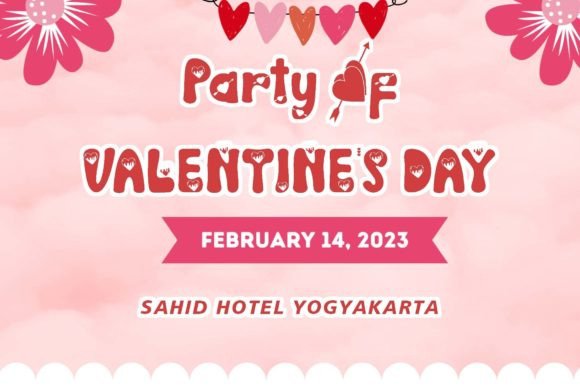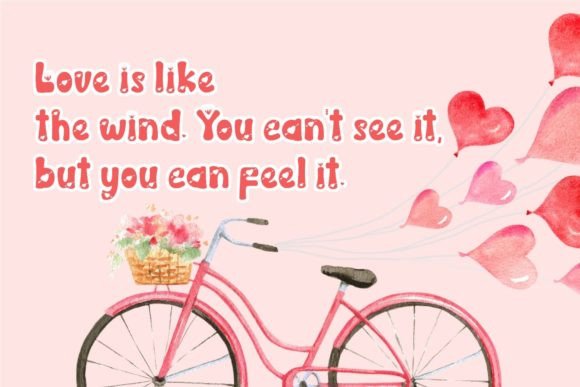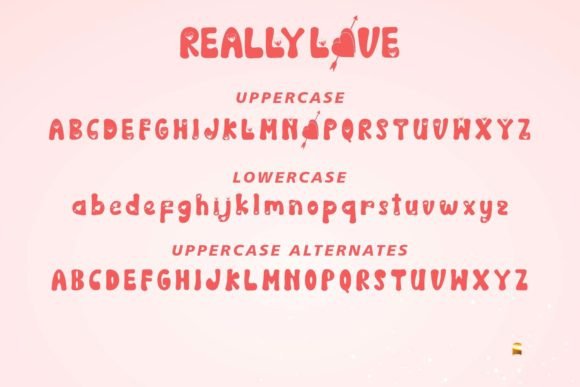
Really Love Font – Free Download
Introduction to Really Love Font
Really Love is a very unique and beautiful retro font.
Whether you use it for Valentineโs Day moments, weddings, engagements, photography, and others design ideas that require a lovely touch, this font will be an excellent choice This font is PUA encoded which means you can access all glyphs and swashes effortlessly.
Key Features of Really Love Font